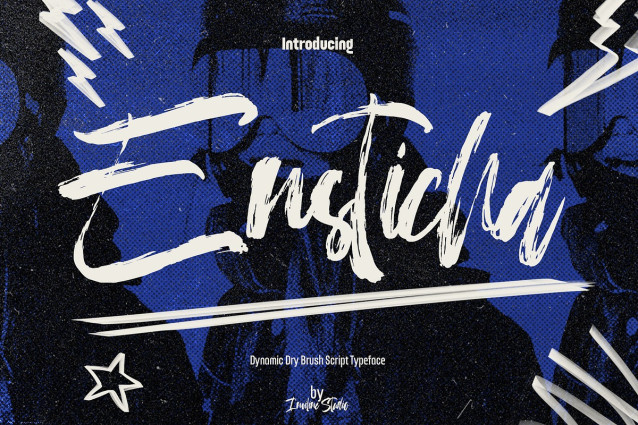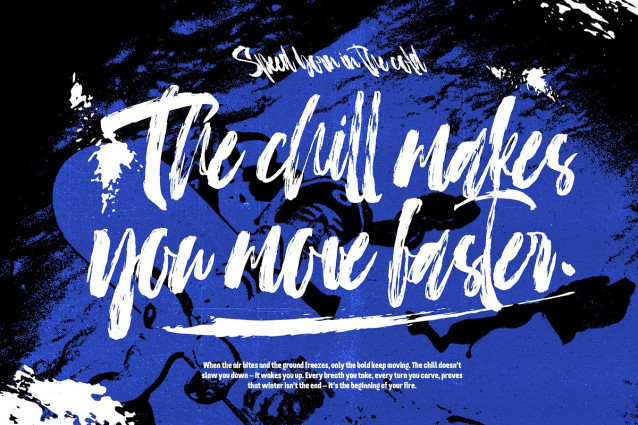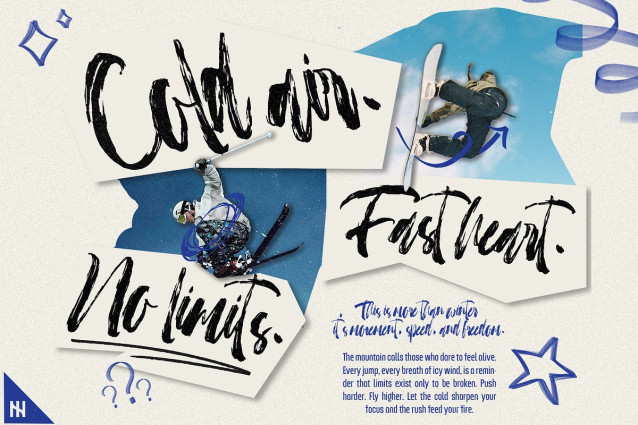
Ensticha Brush Font
Ensticha Brush Font is a dynamic dry brush script typeface with bold, expressive strokes—perfect for adrenaline-fueled visuals. Inspired by winter sports and urban street energy, it brings raw movement and cold intensity to your designs. Great for posters, branding, apparel, and editorial headlines that demand fierce personality.